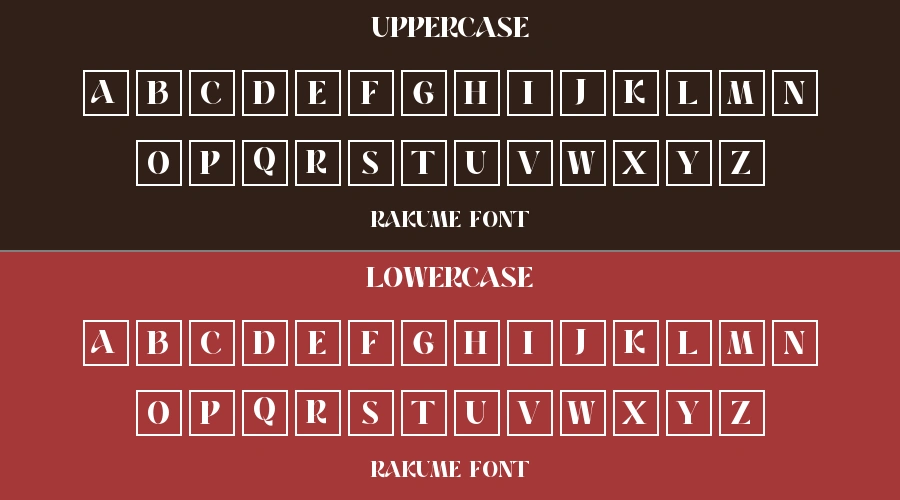
About Rakume Font
Rakume Font stands out for its distinctive combination of bold expressions and memorable presence. Ideal for newspaper text, it provides the personality and historical accuracy that professional projects demand. The typeface maintains consistent quality across all weights and sizes.
Key features include refined consistent rhythm and practical proportional figures, enhancing typographic expression. In exhibition materials applications, Rakume Font demonstrates exceptional table alignment. The tail length and historical context contribute to its distinctive character and professional appeal.